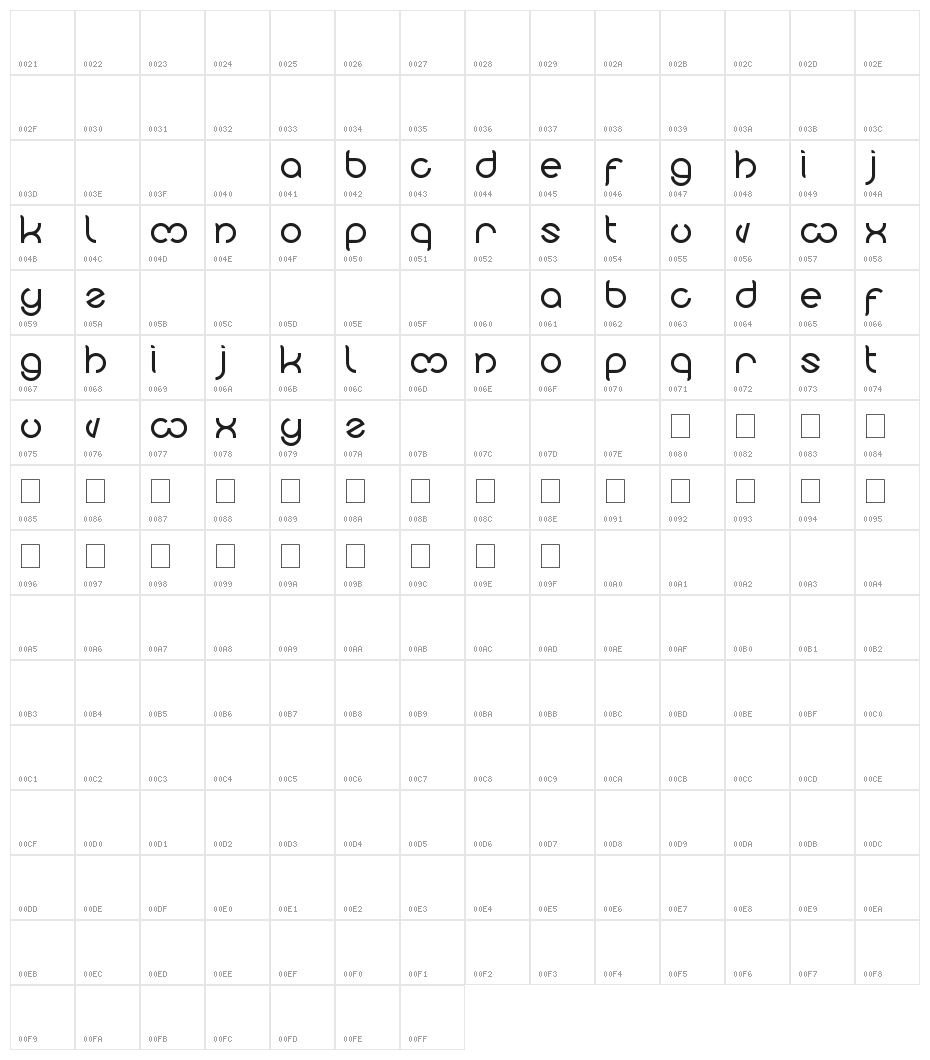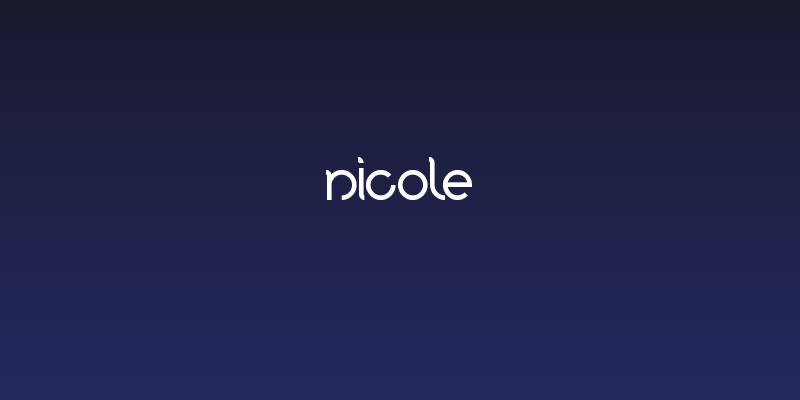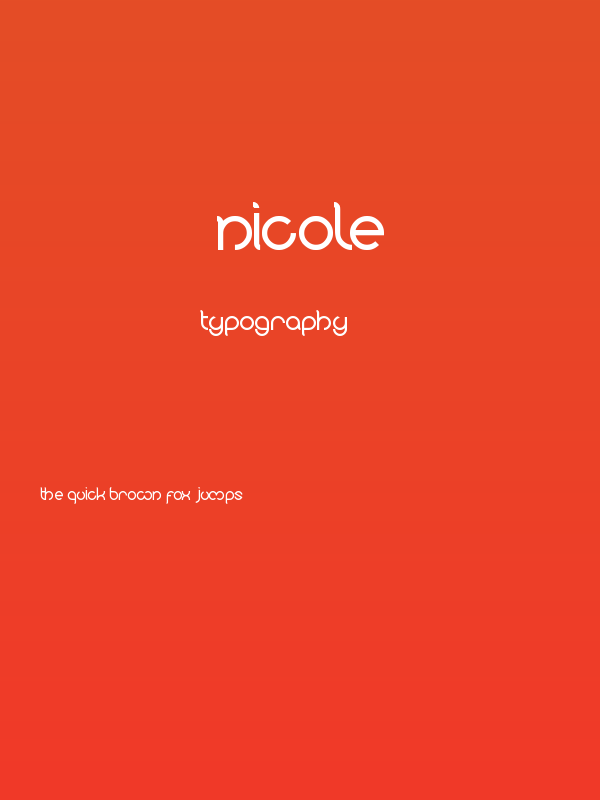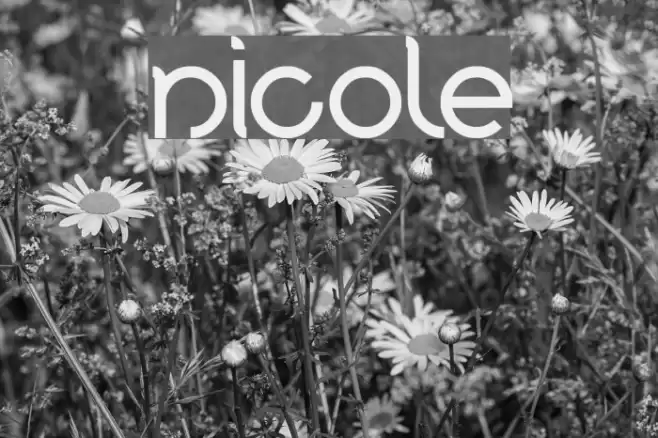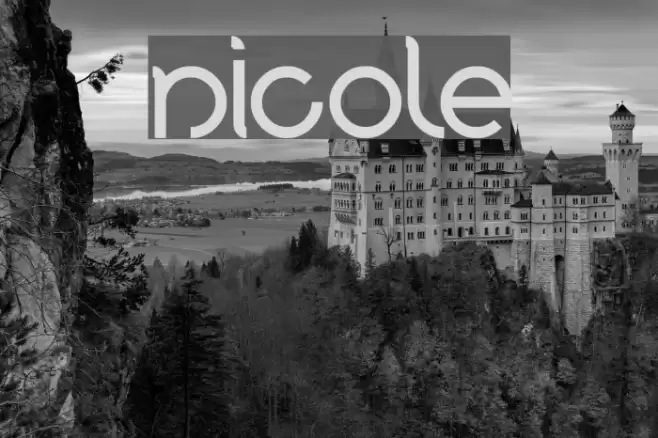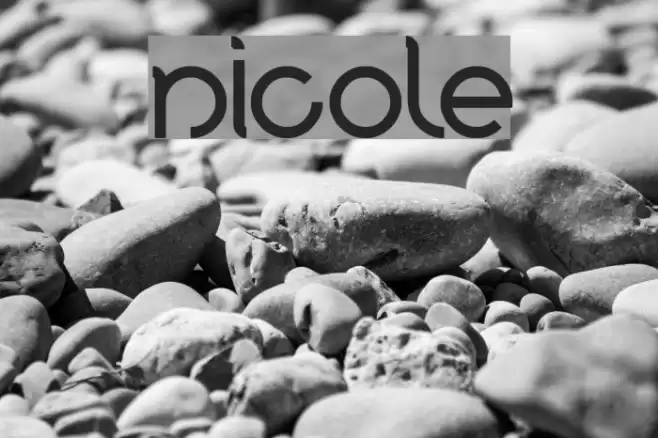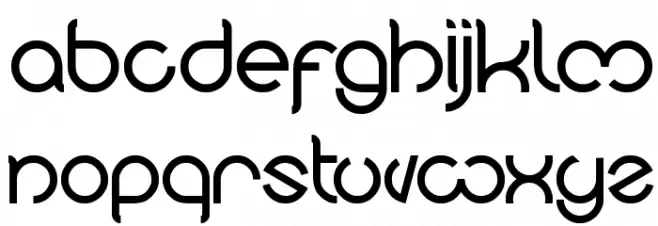
nicole Font
nicole Description
This font features a unique and modern design with a playful twist. The characters are rounded and interconnected, giving it a futuristic and cohesive appearance. The strokes are consistent in width, providing a uniform look across all letters. The lowercase letters exhibit a distinctive style with loops and curves that add a sense of motion and energy. The font's overall aesthetic is clean and minimalistic, making it suitable for contemporary design projects. Its geometric shapes and smooth lines make it stand out, offering a fresh take on traditional letterforms.
| Use Case | Logos, Headlines, Branding |
| Proposed Projects | Ideal for branding, logos, and modern web design projects where a unique and contemporary style is desired. |